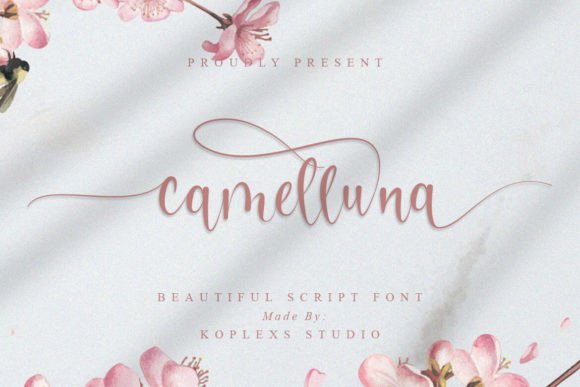
Introducing Camelluna Font: A Fresh and Modern Script Font
Are you looking for a font that can add a touch of elegance and sophistication to your designs? Look no further than Camelluna Font, a fresh and modern script font that is perfect for a variety of design projects. With its handcrafted calligraphy style, decorative characters, and dancing baselines, Camelluna is sure to make your designs stand out.
What is Camelluna Font?
Camelluna Font is a modern script font that is designed to give your designs a personal and creative touch. It features a handcrafted calligraphy style that is perfect for creating beautiful and elegant designs. The font comes with 185 glyphs, including alternate characters that can be accessed using Open Type savvy programs such as Adobe Illustrator, Adobe InDesign, Adobe Photoshop, Corel Draw X, and Microsoft Word.
Key Features of Camelluna Font
- Handcrafted Calligraphy Style: Camelluna Font features a beautiful handcrafted calligraphy style that is perfect for creating elegant and sophisticated designs.
- Decorative Characters: The font comes with a range of decorative characters, including swashes, flourishes, and ligatures, that can be used to add a touch of elegance to your designs.
- Dancing Baselines: Camelluna Font features dancing baselines, which give the font a sense of movement and energy.
- 185 Glyphs: The font comes with 185 glyphs, including alternate characters that can be accessed using Open Type savvy programs.
- Open Type Features: Camelluna Font features Open Type features, including Stylistic Sets and Stylistic Alternates, that can be accessed using Open Type savvy programs.
Uses of Camelluna Font
Camelluna Font is a versatile font that can be used for a variety of design projects, including:
- Invitations: Camelluna Font is perfect for creating beautiful and elegant invitations, including wedding invitations, birthday invitations, and graduation invitations.
- Greeting Cards: The font can be used to create beautiful and elegant greeting cards, including Christmas cards, Valentine’s Day cards, and thank you cards.
- Branding Materials: Camelluna Font can be used to create branding materials, including logos, business cards, and letterheads.
- Quotes and Posters: The font can be used to create inspiring quotes and posters that are perfect for social media and marketing campaigns.
Benefits of Using Camelluna Font
There are several benefits to using Camelluna Font, including:
- Elegant and Sophisticated: Camelluna Font is an elegant and sophisticated font that can add a touch of luxury to your designs.
- Versatile: The font is versatile and can be used for a variety of design projects.
- Easy to Use: Camelluna Font is easy to use and can be accessed using a range of design programs.
- Unique: The font features a unique and distinctive style that will make your designs stand out.
Tips and Tricks for Using Camelluna Font
Here are some tips and tricks for using Camelluna Font:
- Use it with Other Fonts: Camelluna Font can be used with other fonts to create a unique and interesting design.
- Experiment with Different Sizes: Experiment with different font sizes to create a visually appealing design.
- Use it for Headings and Titles: Use Camelluna Font for headings and titles to add a touch of elegance to your design.
- Make it Bold: Make the font bold to create a statement piece.
Camelluna Font is a beautiful and elegant script font that is perfect for a variety of design projects. With its handcrafted calligraphy style, decorative characters, and dancing baselines, Camelluna is sure to make your designs stand out. The font is easy to use and can be accessed using a range of design programs. Whether you’re a designer, craftsman, or DIY enthusiast, Camelluna Font is a great choice for your next design project.
- What is Camelluna Font?: Camelluna Font is a modern script font that features a handcrafted calligraphy style, decorative characters, and dancing baselines.
- How many glyphs does Camelluna Font come with?: Camelluna Font comes with 185 glyphs, including alternate characters.